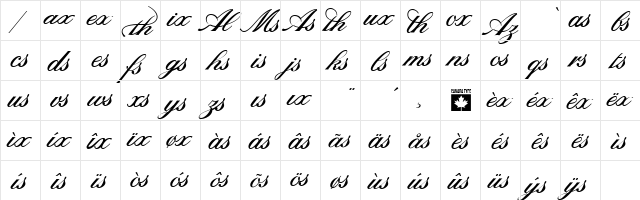
Sterling Script Ligatures Regular
Design Context for Sterling Script Ligatures Typeface
Sterling Script Ligatures brings a calligraphic fluidity to the page — its connecting strokes and expressive curves give it an unmistakably human quality.
Font Pairing: Combine Sterling Script Ligatures with a simple geometric sans for maximum contrast — the tension between flowing curves and clean structure is a classic typographic pairing.
Pro Tip: Pair Sterling Script Ligatures with a clean sans-serif for supporting text. The contrast between fluid script and geometric structure creates an elegant typographic hierarchy.